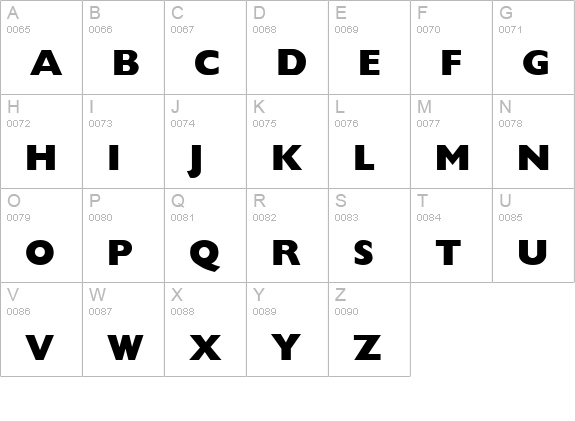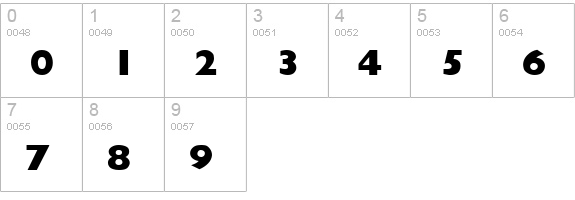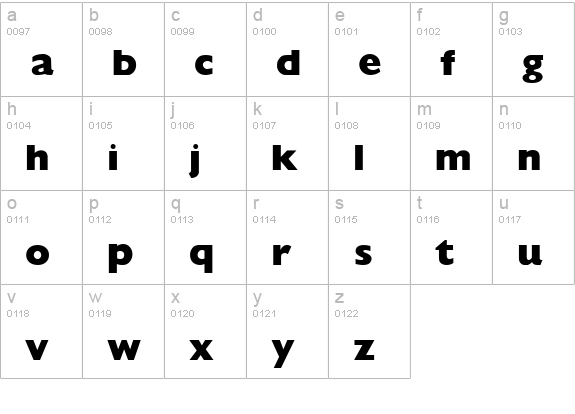
Minicar Font Details
Minicar font is a versatile and modern typeface that perfectly captures the essence of youthful energy and playfulness. Its sleek lines and rounded edges give off a fun and friendly vibe that is sure to make any design pop. Whether you're creating a logo, poster, or greeting card, Minicar font will add a touch of whimsy and charm to your projects. The best part? Minicar font is completely free to download at FontsMarket.com! That's right, you can get your hands on this delightful typeface without spending a dime. So why wait? Give your designs a fresh and exciting look with Minicar font today!